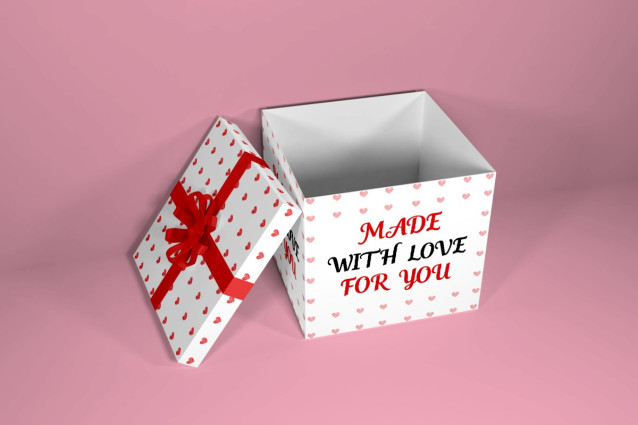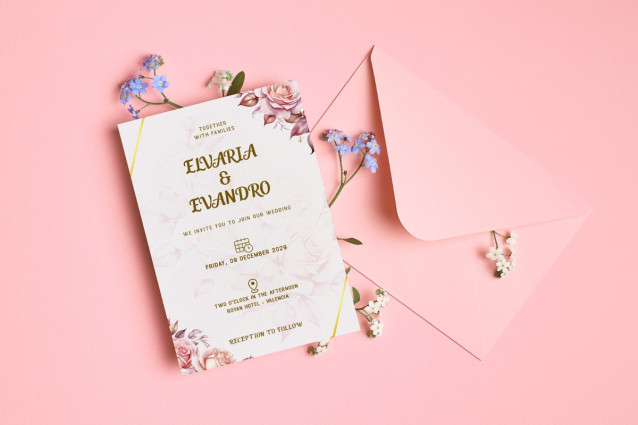
Valentine Rose Font
Valentine Rose Font A Modern Valentine Script Font is part of our Script font family. This font is an elegant typeface that exudes a simple yet romantic feel. This font has many beautiful grooves and curves in its design. Compared to other font types, this Script font has a more limited use. Valentine Rose A Modern Valentine Script Font is the best Valentine font to use for things like Valentine’s celebrations, banquet decorations, souvenirs, and many more. You can use this font to print invitations, love letters, posters, and banners. This script font is one of the readable fonts that can be used in romantic-themed movies. Movie titles with a theme of struggle for love stories are the best choice for Valentine Rose A Modern Valentine Script Font. Valentine Rose A Modern Valentine Script Font does not require much decoration or additional work to look good on printed and non-printed materials. All you need is the skill to understand good font combinations and different typefaces that can be used together. You can bring out the best in our fonts with matching colors and themes. Avoid using Valentine Rose A Modern Valentine Script Font in long texts with lots of dense information for your readers because our Valentine Rose A Modern Valentine Script Font may be one of the best looking Script fonts but may not be the best font to choose if you want a more formal typeface for your project. Our Serif font collection is compatible to be used as; Figma fonts, Canva fonts, Freepik Fonts, and Adobe Fonts. They also work as Windows Fonts and Apple Fonts. For your social media needs, you can use and install fonts in our Script & Signature font collection to be used as Instagram Fonts, Facebook Fonts, and Twitter Fonts.